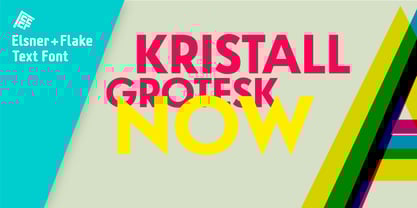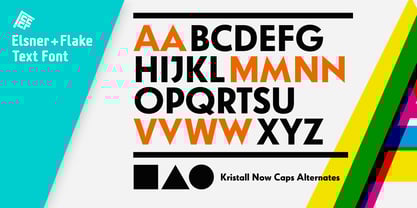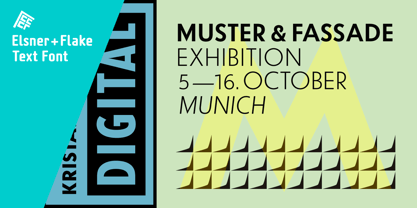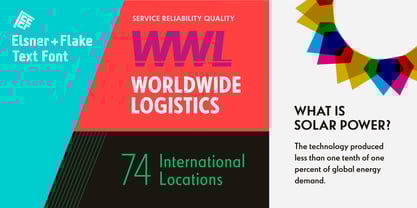
Kristall Now Pro Font
This Kristall Now Pro Font is perfect for luxury crystal jewelry branding, premium glass product packaging, sophisticated diamond company materials, high-end optical equipment graphics, contemporary luxury hotels, crystalline architecture signage, pure mineral water branding, transparent technology interfaces, precision manufacturing communications, and crystal-clear corporate messaging.
What makes this Kristall Now Pro Font exciting is its crystalline precision that captures the pure brilliance and flawless clarity of premium crystal formations. The font features sharp, refined letterforms with crystalline geometry that convey optical perfection, pristine quality, and contemporary luxury. Its crystal-clear character and precision engineering make it ideal for brands seeking to communicate absolute clarity, pure excellence, and sophisticated transparency in luxury and technology markets.
The Kristall Now Pro Font family includes thin through black weights with crystalline alternates, optical variants, and precision-cut flourishes. This comprehensive crystal-inspired font family provides designers with pristine typographic tools to create brilliant compositions while maintaining the crystalline character essential for luxury and precision technology brand communications.
Luxury brands and precision technology companies consistently choose Kristall Now Pro Font Free Download for projects requiring crystalline sophistication and optical excellence. This font's distinctive crystal character perfectly captures the pure brilliance and contemporary precision that resonate with audiences who appreciate crystal clarity, luxury materials, and brands that embody flawless quality and sophisticated transparency.
The precise construction of Kristall Now Pro Font showcases expertly crafted letterforms with crystal proportions that ensure exceptional clarity across all luxury applications. Its brilliant appearance and optical precision create memorable impressions while maintaining the readability necessary for effective luxury communication and precision technology materials.
Professional designers appreciate how Kristall Now Pro Font brings immediate crystal sophistication and optical authority to brand communications. The font's crystalline nature allows organizations to communicate pure excellence and precision quality while maintaining the professional standards necessary for effective positioning in luxury and high-tech precision markets.
The brilliant appeal of Kristall Now Pro Font makes it particularly effective for brands emphasizing crystal clarity, optical precision, and contemporary luxury excellence. Its pristine character resonates strongly with audiences who appreciate flawless quality, precision engineering, and brands that represent the pinnacle of crystal-clear excellence and sophisticated transparency.
Whether developing branding for luxury crystal manufacturers or creating materials for precision optical companies, Kristall Now Pro Font Free Download provides the crystalline typographic foundation that premium brands need to communicate their crystal clarity, optical precision, and the brilliant excellence that defines luxury crystal craftsmanship and contemporary precision achievement.